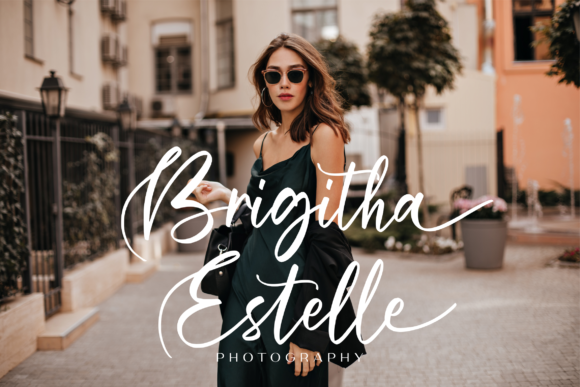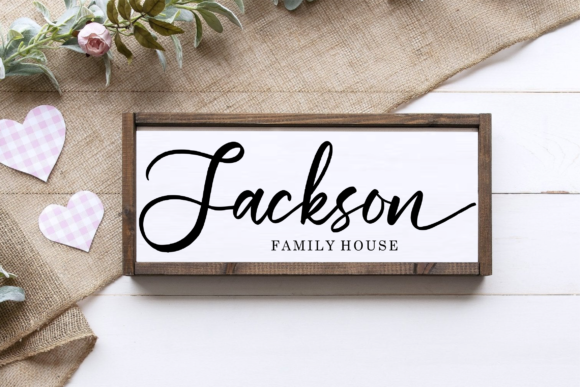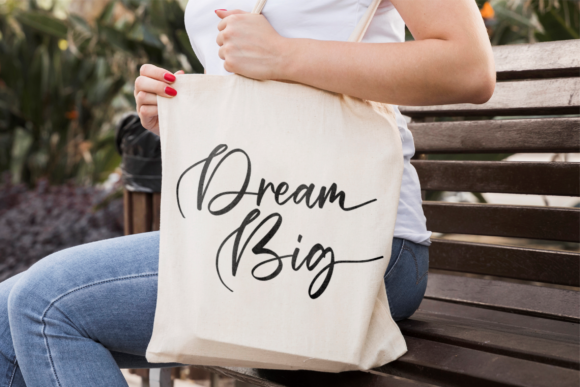
Introduction to Jimscript Font
Have you ever been in the midst of a creative project, pouring over design resources and perfecting the details, only to realize that the font just isn’t capturing the essence of your vision? That’s where the Jimscript Font comes in – a lovely script font designed to elevate your design game and bring a touch of elegance to any project.
With its versatility and high-quality design, the Jimscript Font is perfect for product packaging, branding projects, magazine layouts, social media graphics, wedding invitations, and so much more. What sets it apart is its PUA (Private Use Area) encoding, making it incredibly easy to access all the glyphs and swashes you need to create a truly unique design. Whether you’re working on a free download or a paid project, this font is sure to be a valuable addition to your design arsenal.
As a valuable resource for designers, the Jimscript Font offers a level of flexibility and creativity that’s hard to find in other fonts. Its transparent background makes it a great choice for designs that require a subtle, yet eye-catching look. And with its free download option, you can start experimenting with this amazing font right away!
Key Features of Jimscript Font
- High-quality design resource for creative projects, suitable for various applications including digital art and print materials.
- Comes with a transparent background, allowing for easy integration into various design elements and compositions.
- Features a unique and stylish design, making it an ideal choice for designers seeking to add a touch of elegance to their creative projects.
Honest Review: Jimscript Font
As a designer, I’m always on the lookout for high-quality design resources to elevate my creative projects. The Jimscript Font has caught my attention with its unique style and versatility.
- Unique and quirky style that adds a touch of personality to any design
- High quality and clear typography, perfect for digital and print applications
- Transparent background option for easy customization and layering
While the Jimscript Font is a great addition to any design arsenal, I’ve noticed a few limitations:
- Limited font styles and weights available, which may limit its use in certain design contexts
- No support for bold or italic styles, which can be a drawback for designers who rely on these styles
Overall, I’m impressed with the Jimscript Font’s unique style and high quality. While it has some limitations, it’s still a valuable resource for designers who want to add a touch of personality to their projects. With a bit of creativity and customization, the Jimscript Font can be a great asset for any design project.
Tips for Getting the Most Out of Jimscript Font
Jimscript Font is a high-quality design resource that can elevate your creative project. To get the most out of it, use it on a transparent background to create a clean and modern look. You can also experiment with different font sizes and colors to add depth and visual interest to your design.
Jimscript Font is a versatile font that can be used in a variety of creative projects, including logos, infographics, and presentations. It’s also a great choice for designers who need a high-quality, free download font for their design resource library.